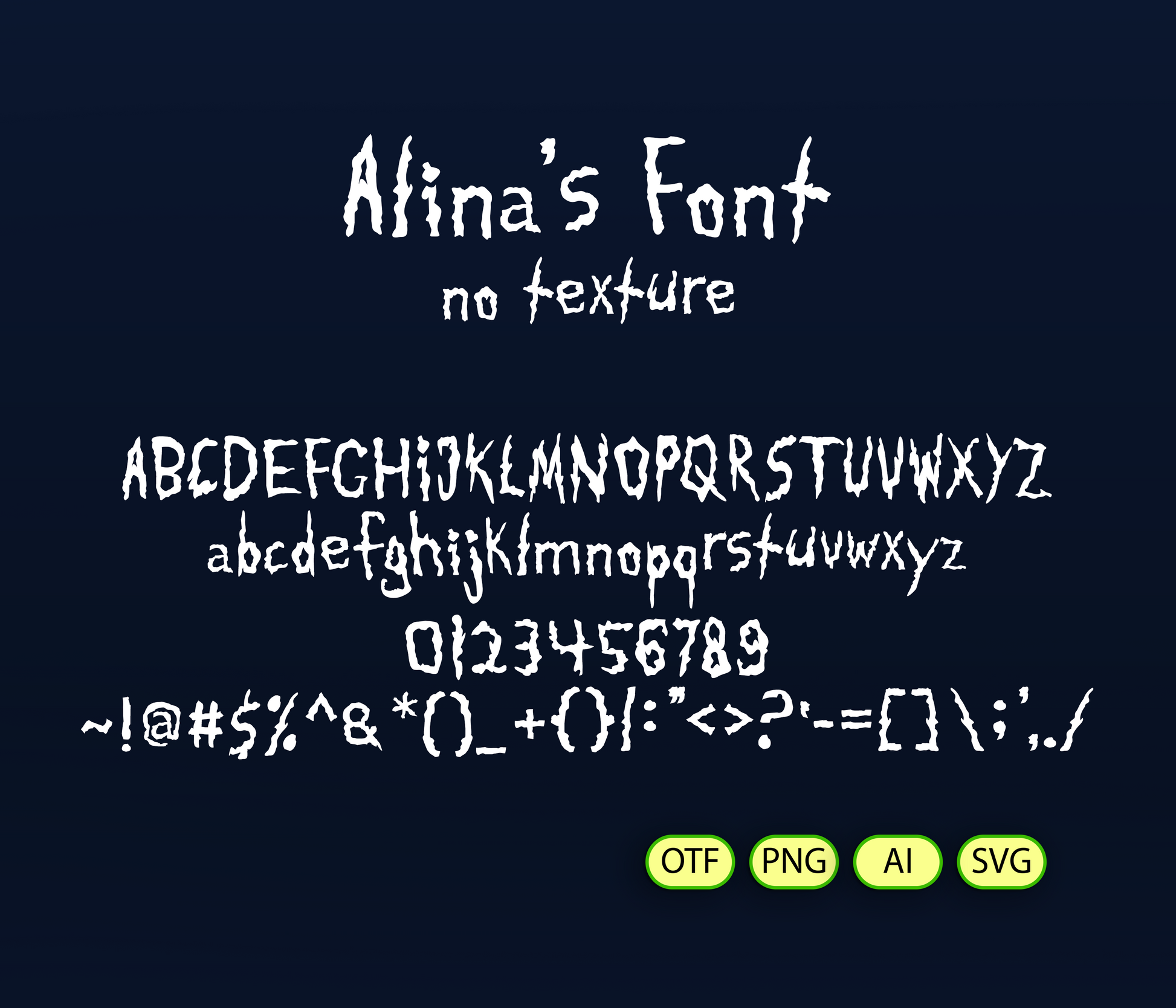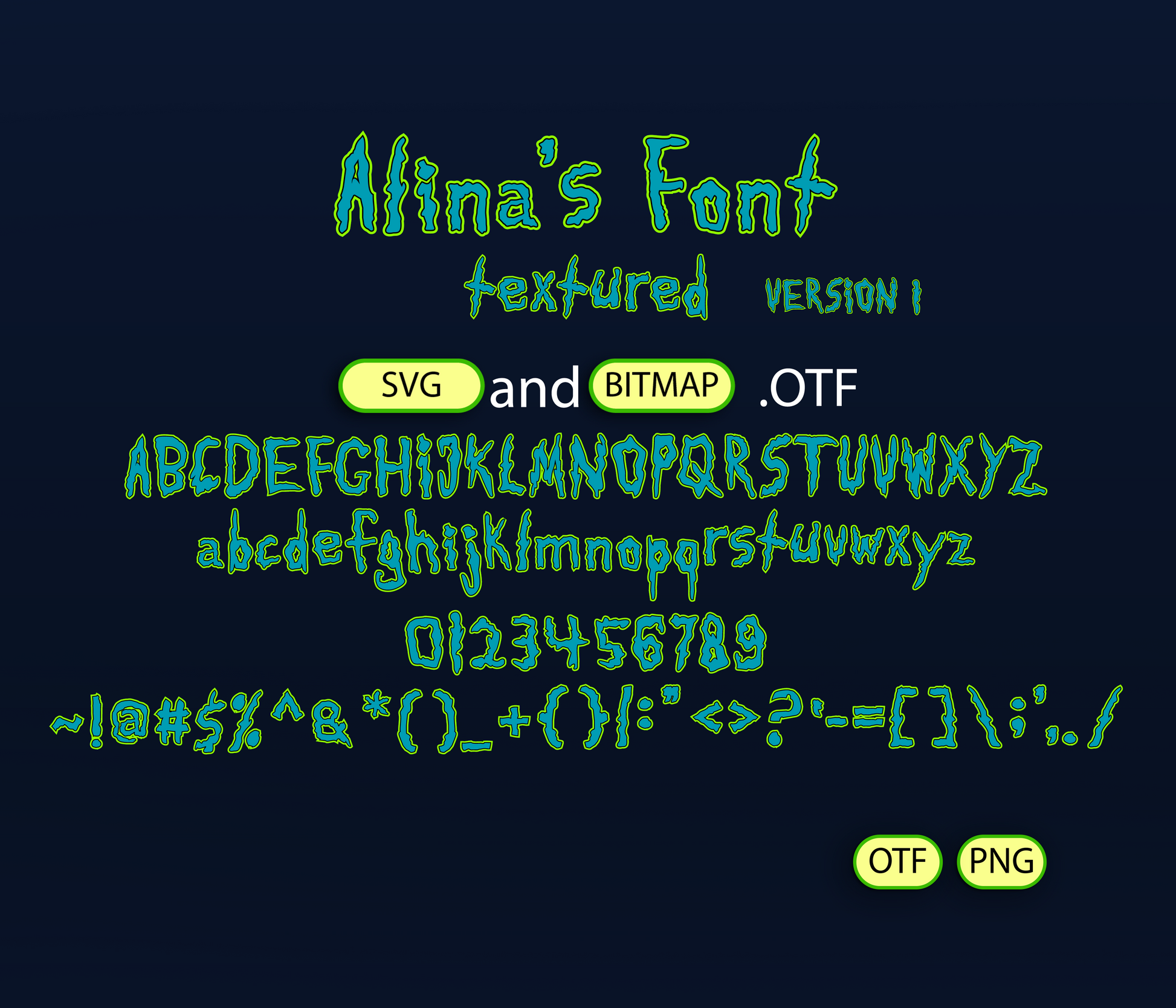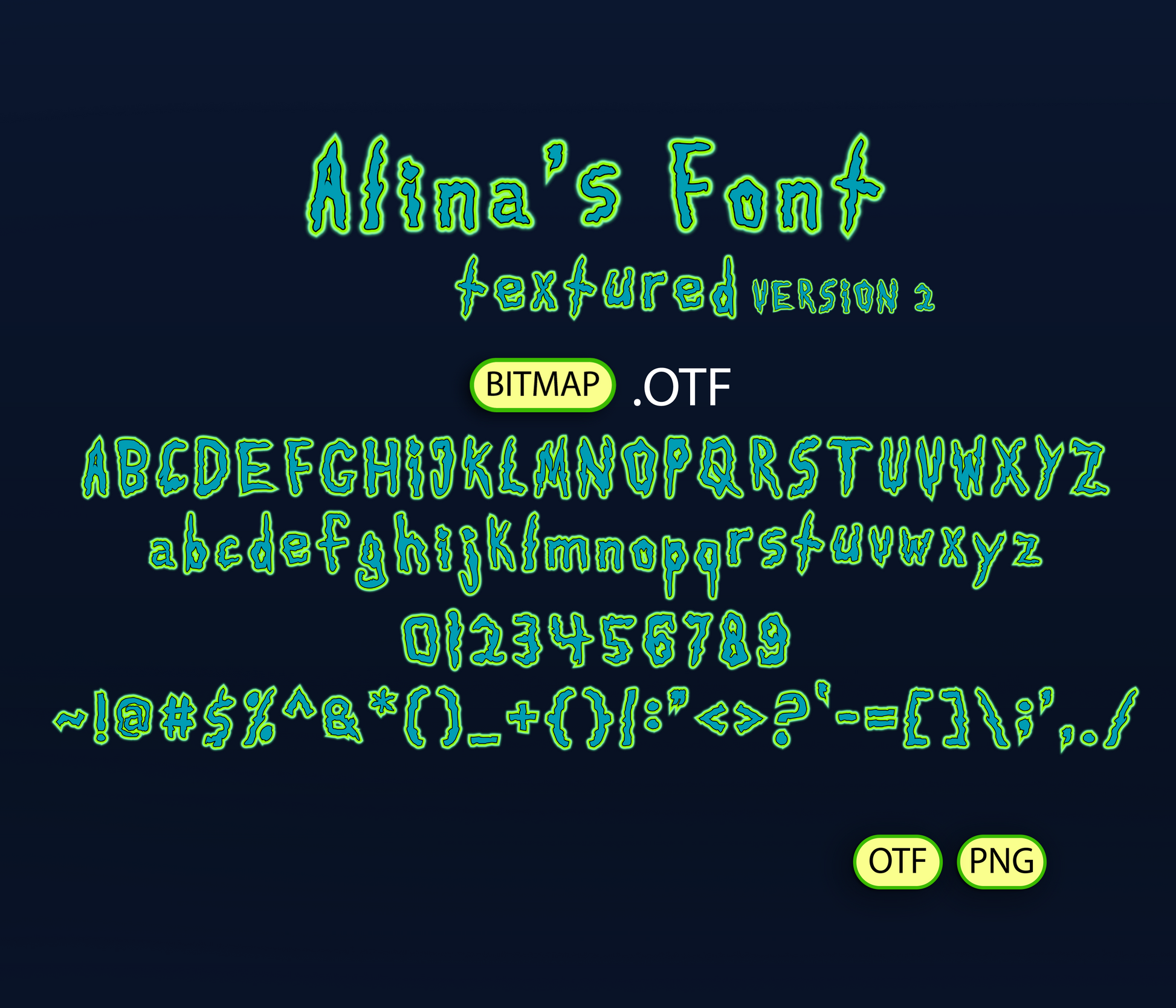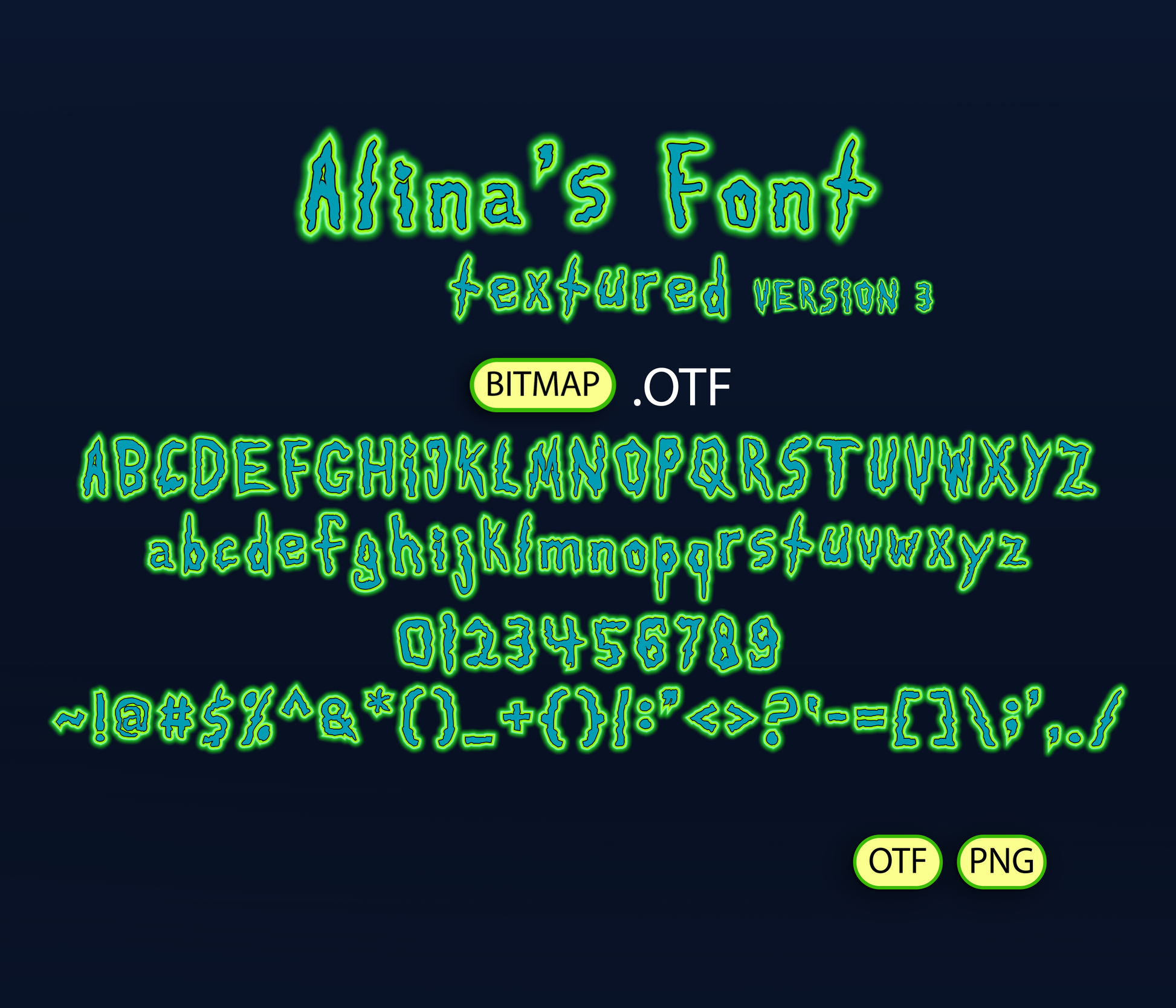
Interdimensional Adventure Fonts Textured Bundle
Hey, get ready to blast off into an insane world of sci-fi adventures with this off-the-wall font. It's like stepping right into those crazy, unpredictable journeys across the universe. This font isn't just a bunch of letters; it's a whole toolkit for creating something as wild and fun as your favorite animated series.
Why This Font Rocks Interdimensional Adventure textured font comes with everything – upper and lower case letters, numbers, and a bunch of special characters. It's super easy to use, whether you're a pro at digital design or a wizard at DIY crafts. Plus, it works great with cutting machines like Cricut, making it perfect for all kinds of creative projects.
Why You'll Love It Fans of interdimensional sci-fi adventures, animated series buffs, or anyone who loves a good laugh – this font's for you. It's your chance to bring a little bit of that chaotic energy into everything you create. Let this font be your portal to a universe of endless possibilities, where the only limit is your imagination.
This font is perfect for bringing a touch of animated sci-fi charm to any project, whether it's for personal use or creative ventures. It's a versatile tool for designers and fans alike, offering a unique way to capture the spirit of intergalactic misadventures.